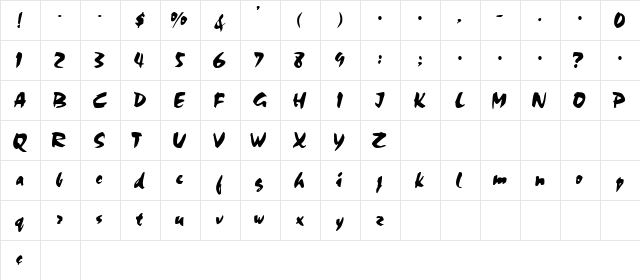
Langur Normal
Design Context for Langur Typeface
Langur is a composed and adaptable typeface that performs quietly and consistently across a wide range of design contexts.